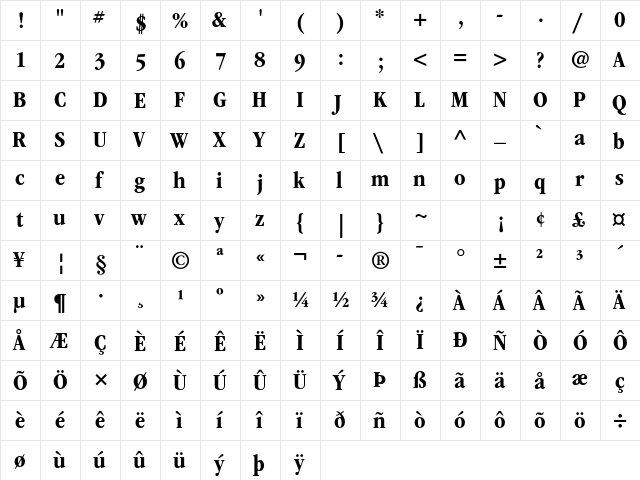
ITC Garamond Std Bold Narrow
| Designer | Tony Stan |
Design Context for ITC Garamond Std Typeface
ITC Garamond Std takes a measured approach to typography — its balanced proportions and neutral character make it a reliable workhorse for both digital and print work. Its bold stroke weight gives it real presence on the page. Its narrow stance lets it pack a punch even in space-constrained designs.